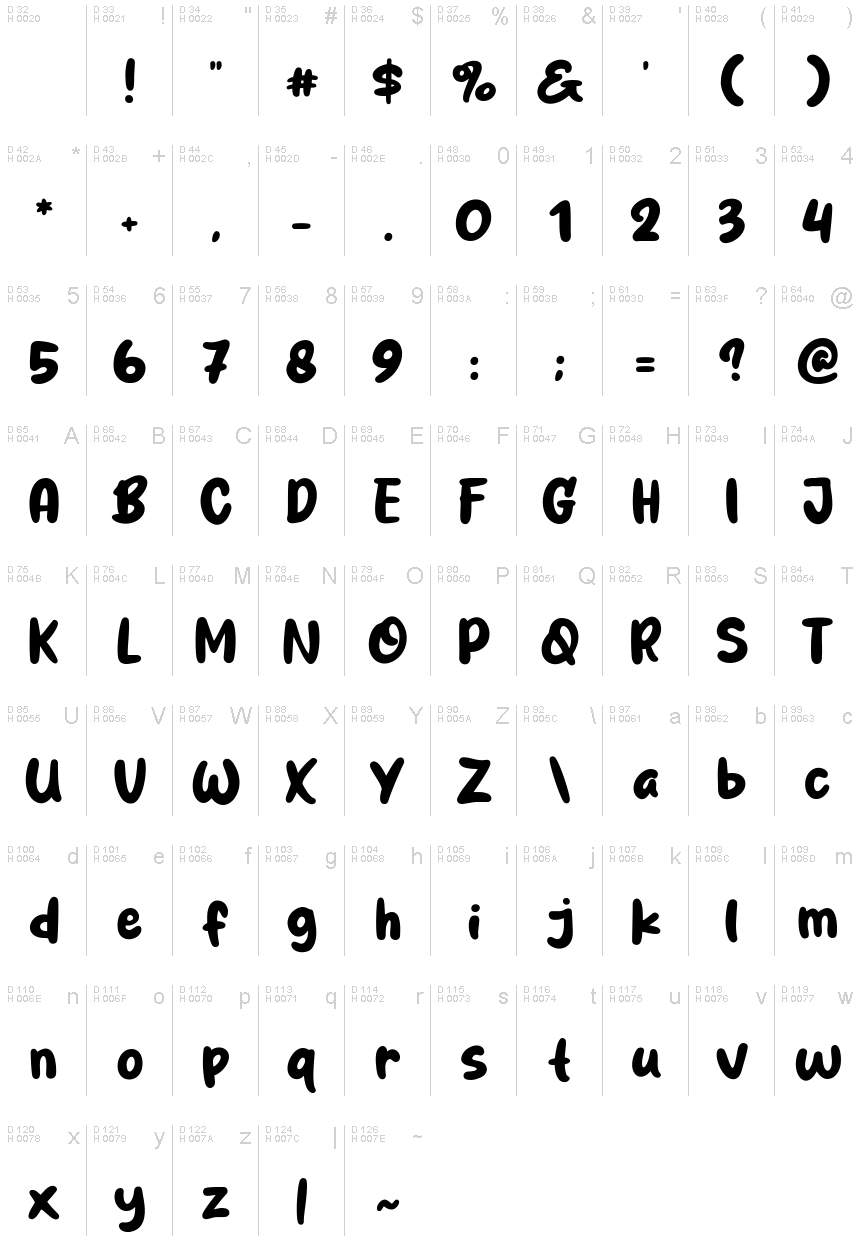
Paratha
Paratha is a bold, cartoon-inspired display font with a playful, handcrafted aesthetic. Designed by Khurasan, this font's dynamic letterforms and exaggerated features immediately command attention.
The thick, expressive strokes and rounded edges convey a sense of vibrancy and youthful energy, making it an excellent choice for headings, logos, and other design elements that aim to capture a lively, approachable tone.
Paratha's distinct personality lends itself well to branding, packaging, and advertising applications, where its eye-catching presence can effectively grab the audience's interest and enhance the overall visual impact.